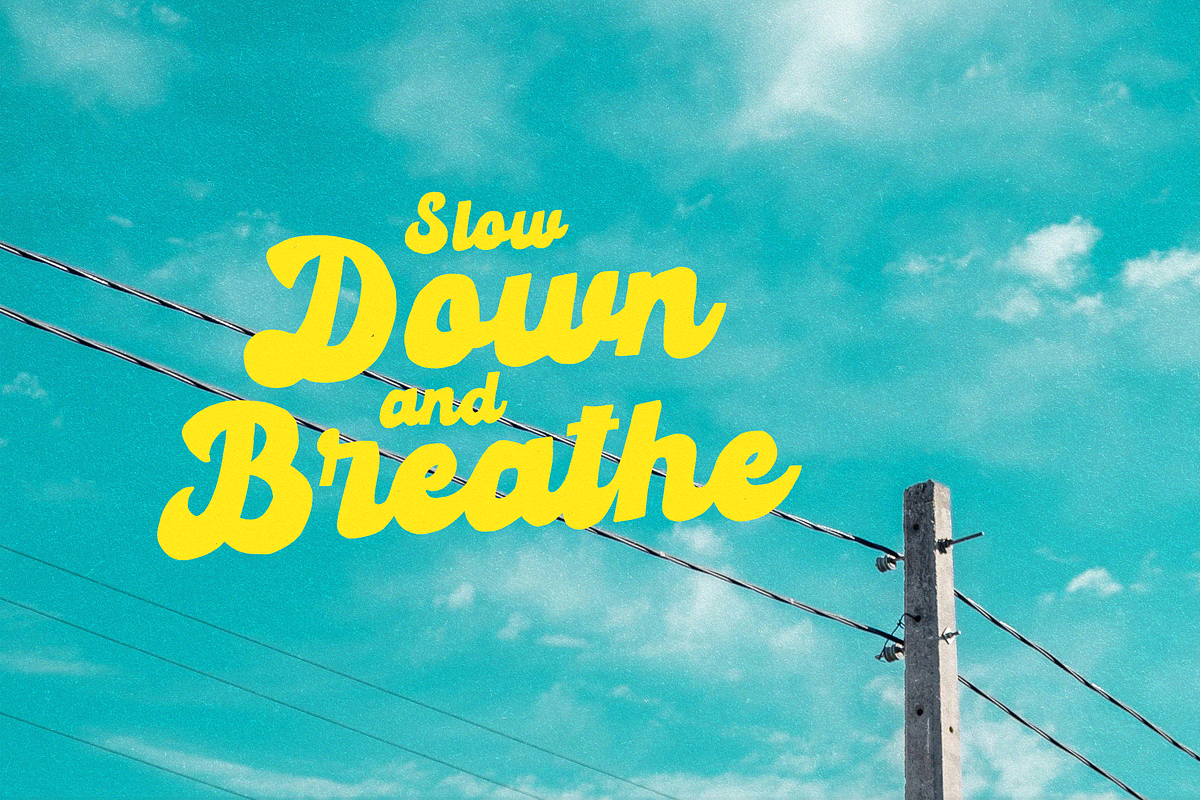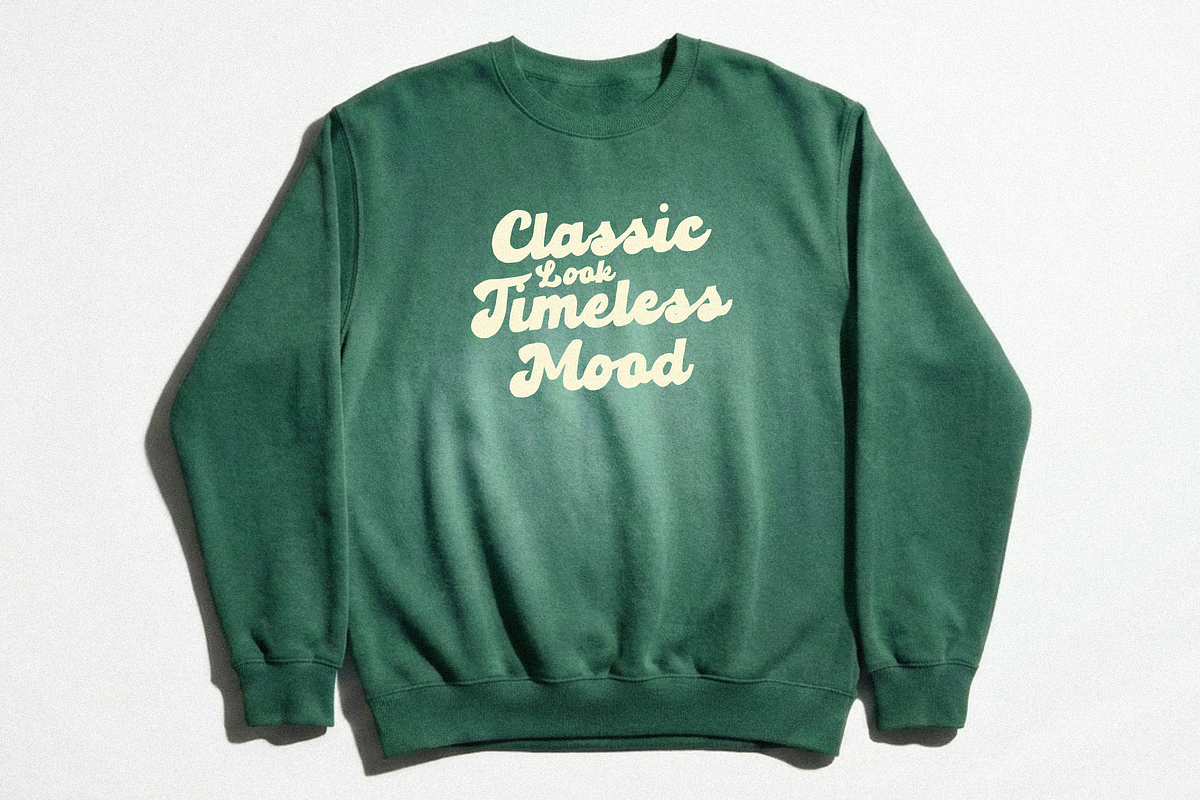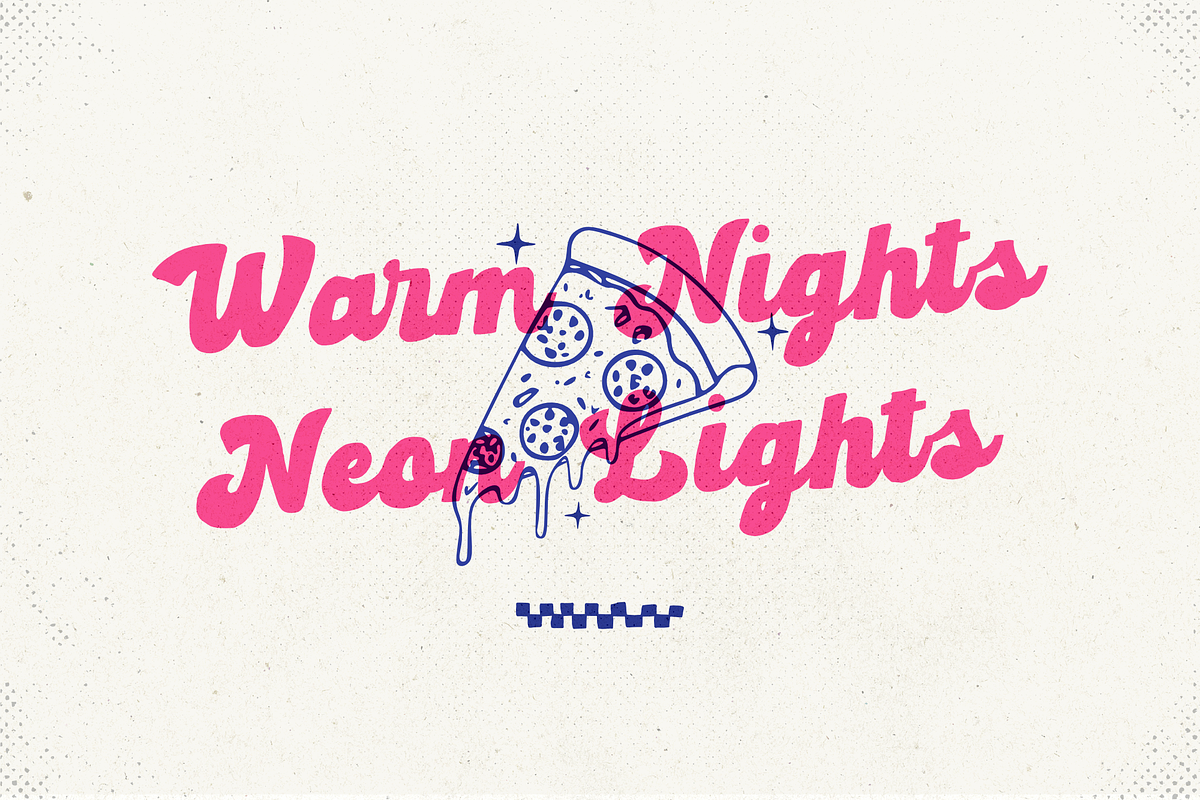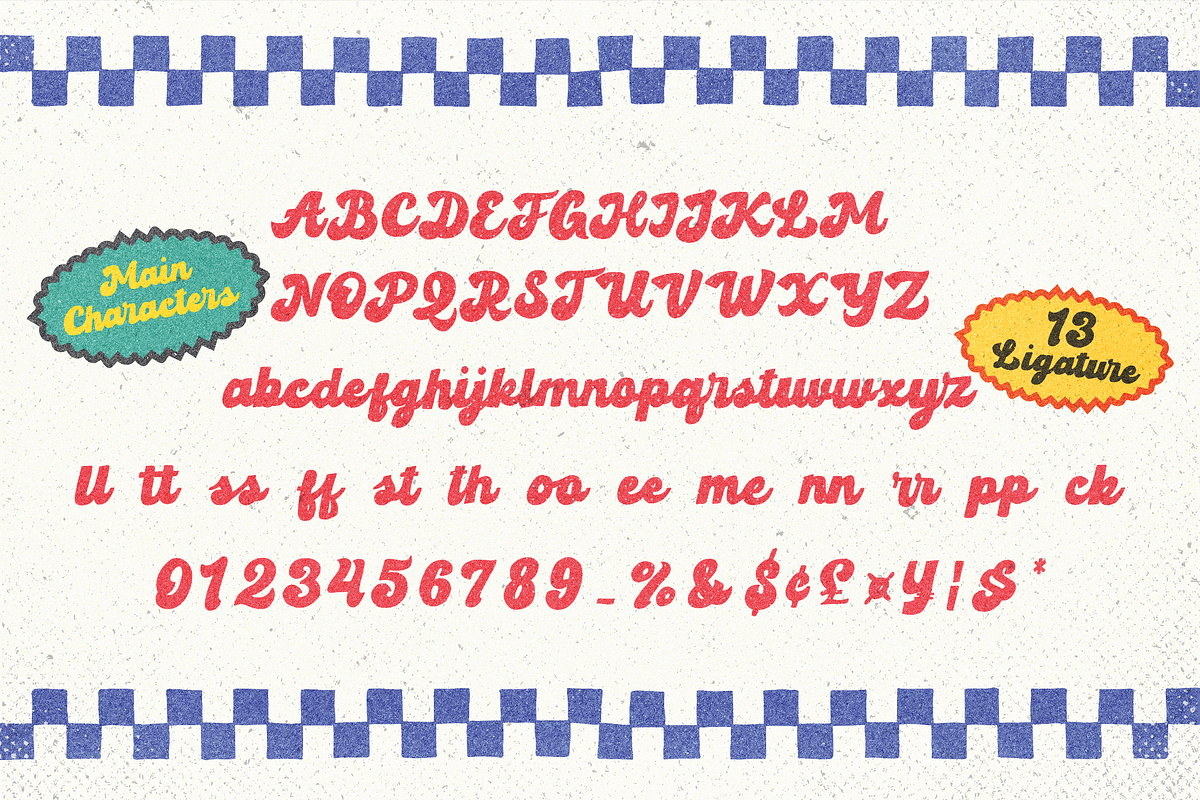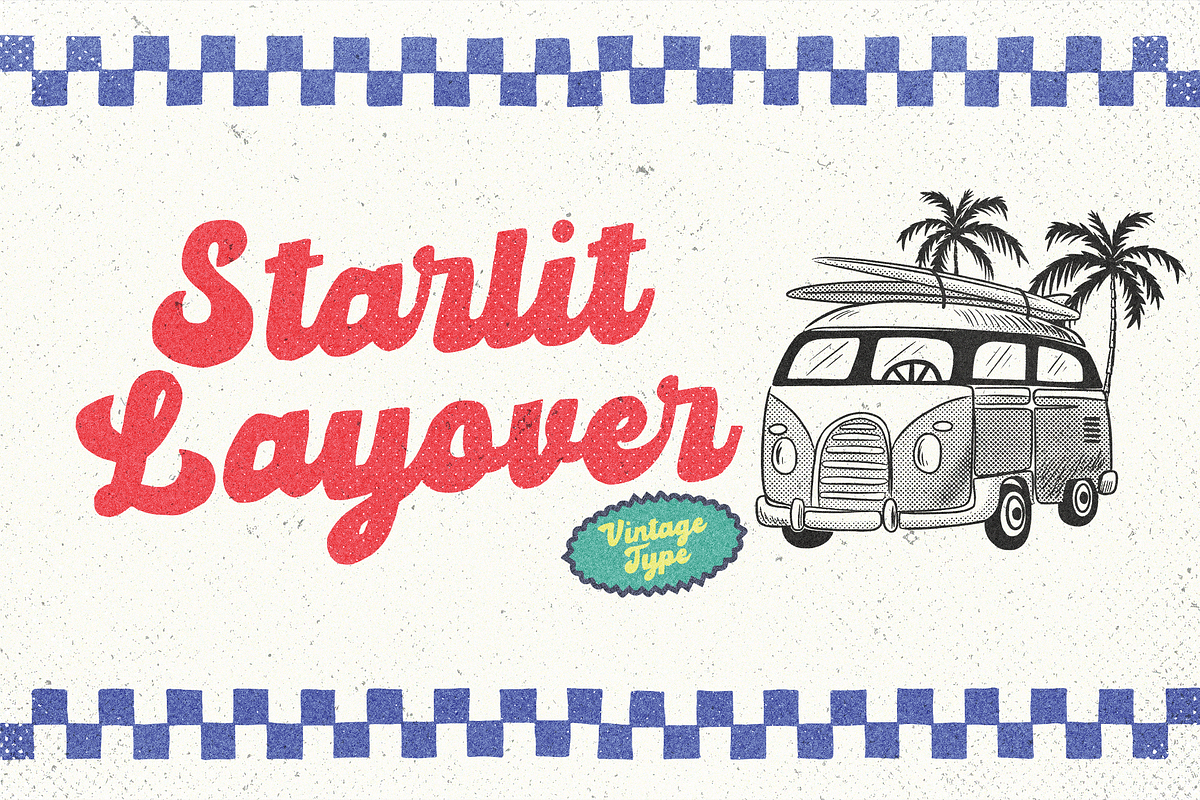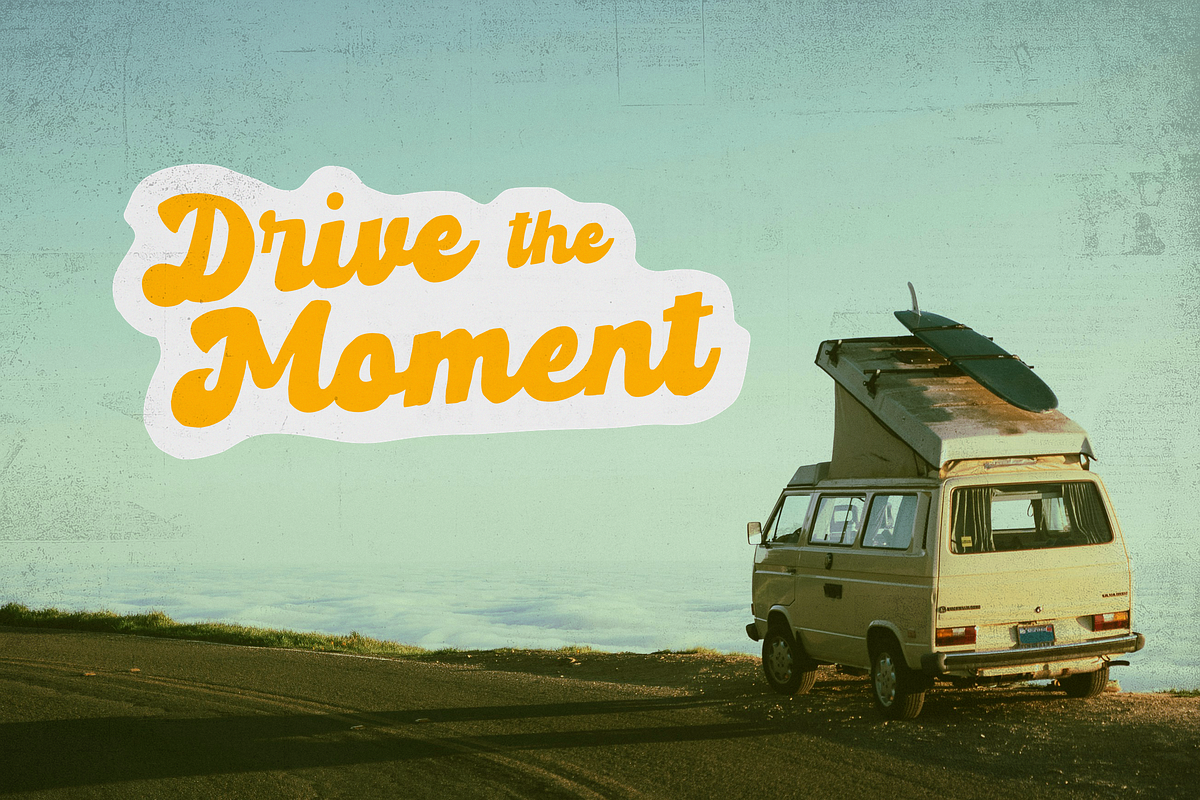
Starlit Layover – Retro Script Font
Starlit Layover — A Chill Retro Script
Starlit Layover is a smooth, easygoing retro script inspired by classic mid-century lettering. It has soft curves, a warm hand-drawn feel, and a touch of texture that gives it a cozy vintage vibe.
Perfect for retro logos, posters, soda-style branding, café designs, lifestyle quotes, or anything that needs a relaxed nostalgic touch. Every stroke feels natural—like it was written on a sunny afternoon.
What’s Inside A hand-drawn retro script with soft, flowing curves
Fun ligatures: ll, tt, ss, ff, st, th, oo, ee, nn, me, rr, pp, ck
Clean, smooth connections for an authentic look Multilingual support (Latin Extended) Great for branding, packaging, merch, social posts, and retro projects
Why It Works Starlit Layover gives you that warm, summery retro feel—casual, friendly, and full of charm. It’s a perfect pick if you want your designs to feel nostalgic without being stiff or overly polished.